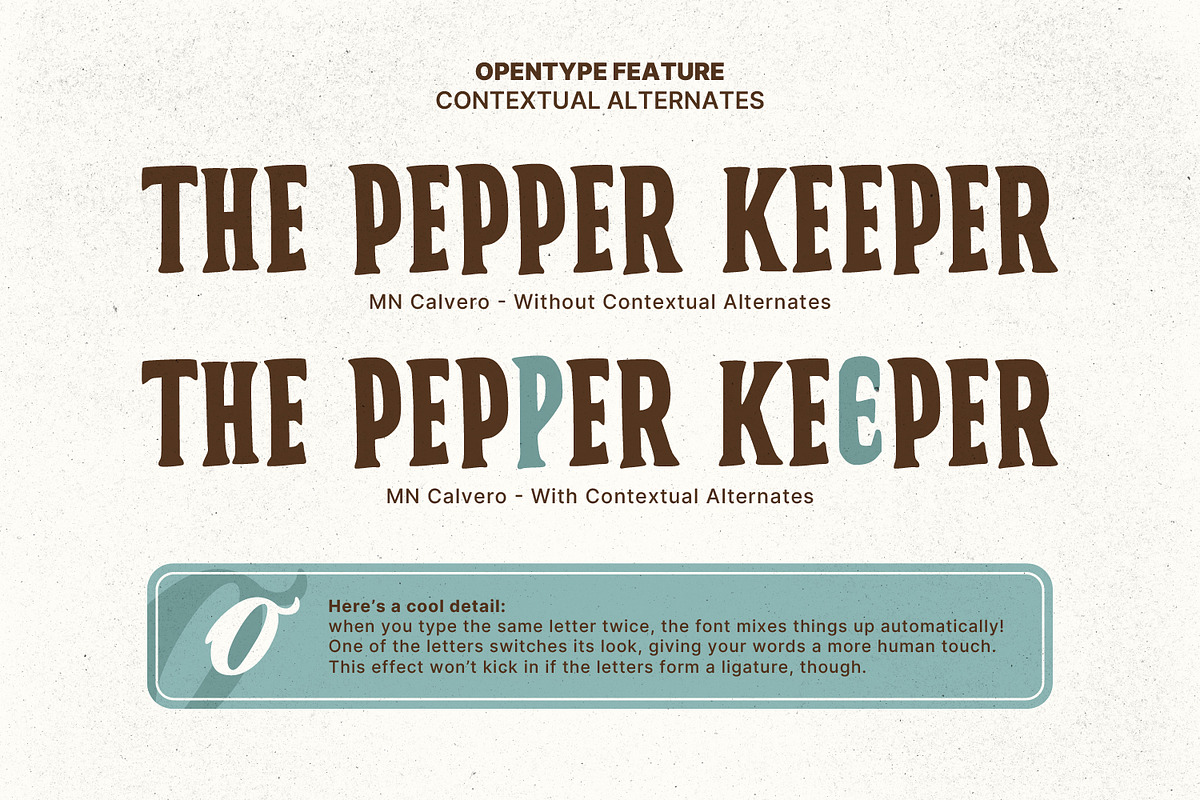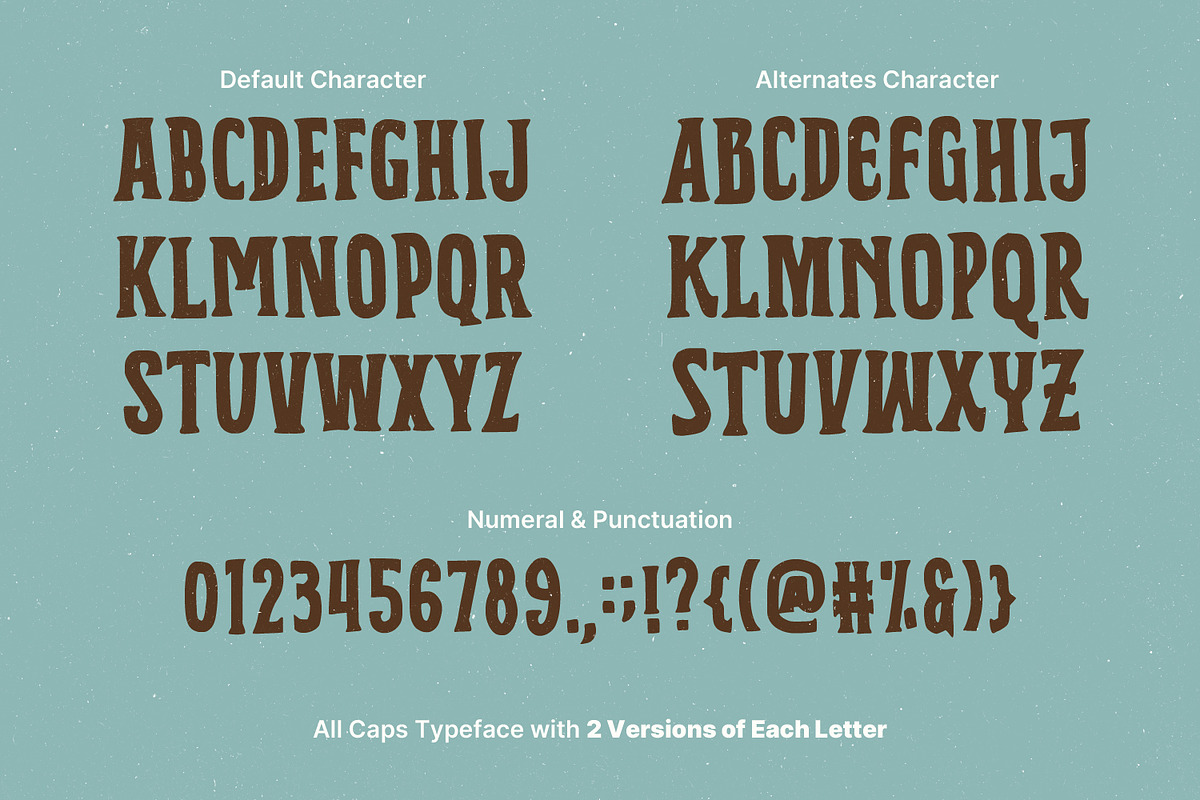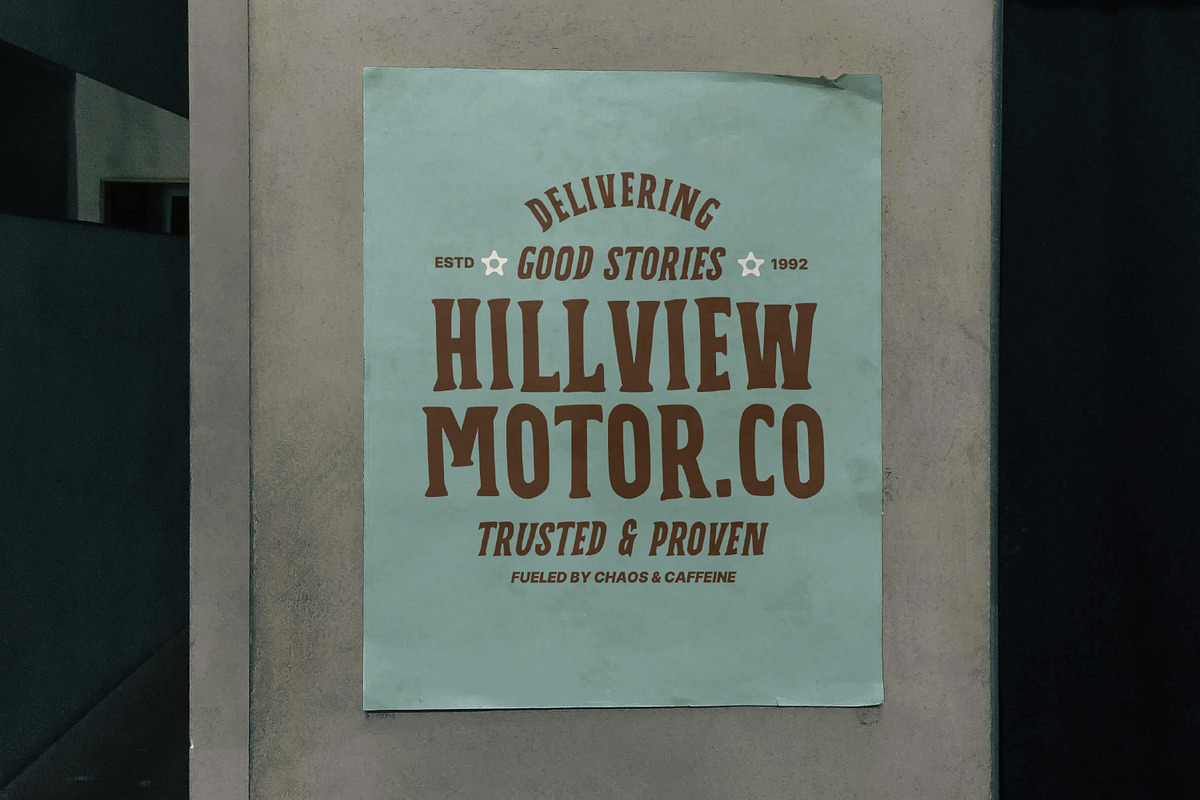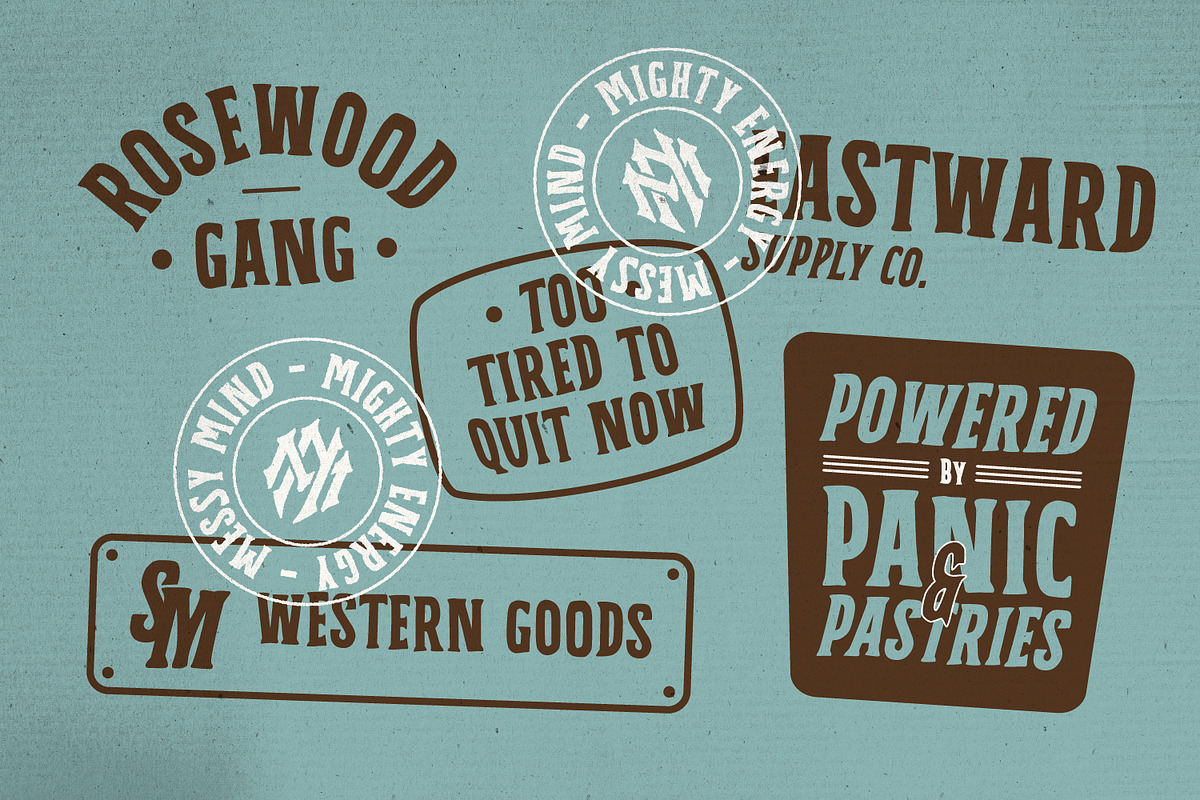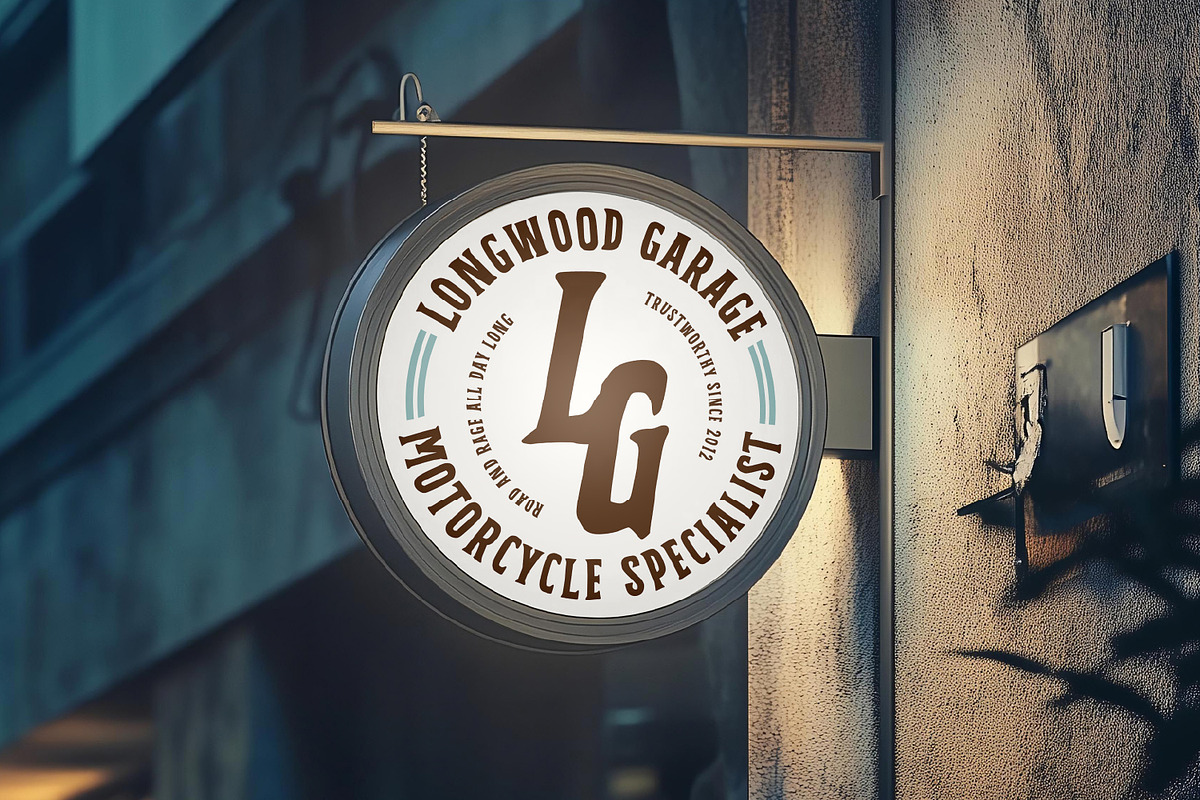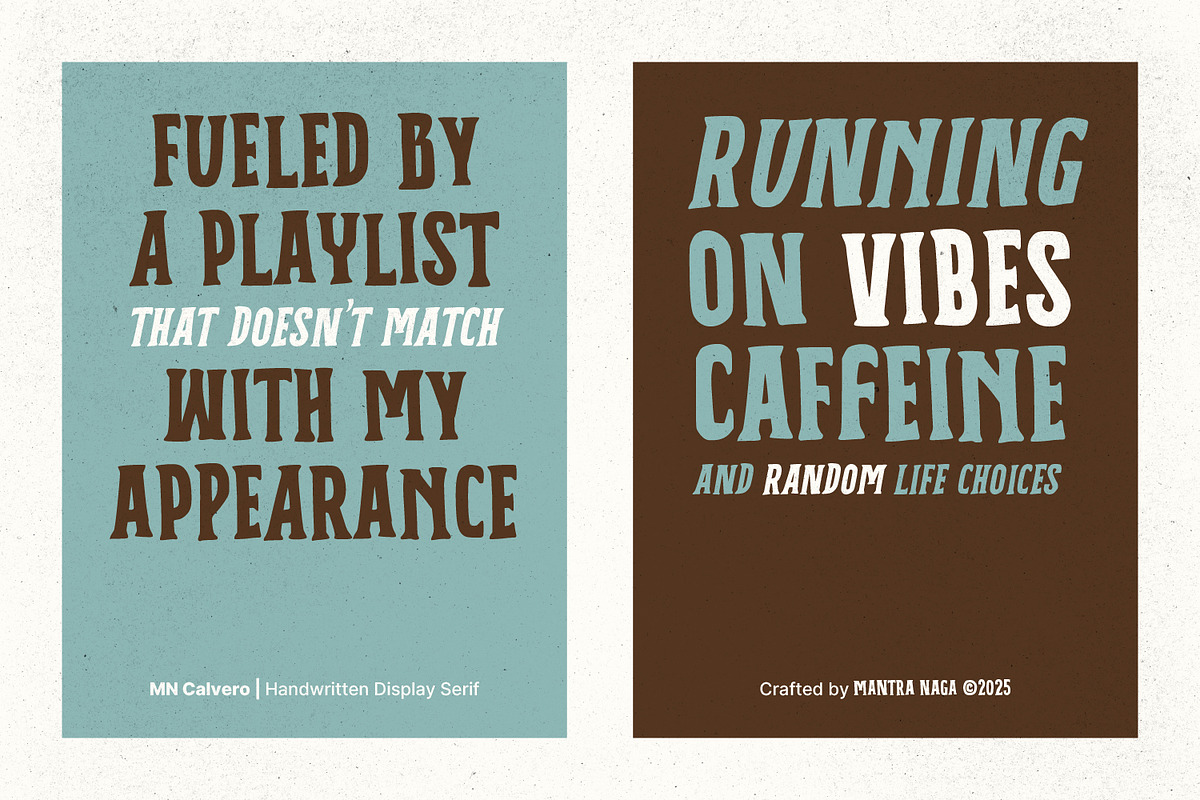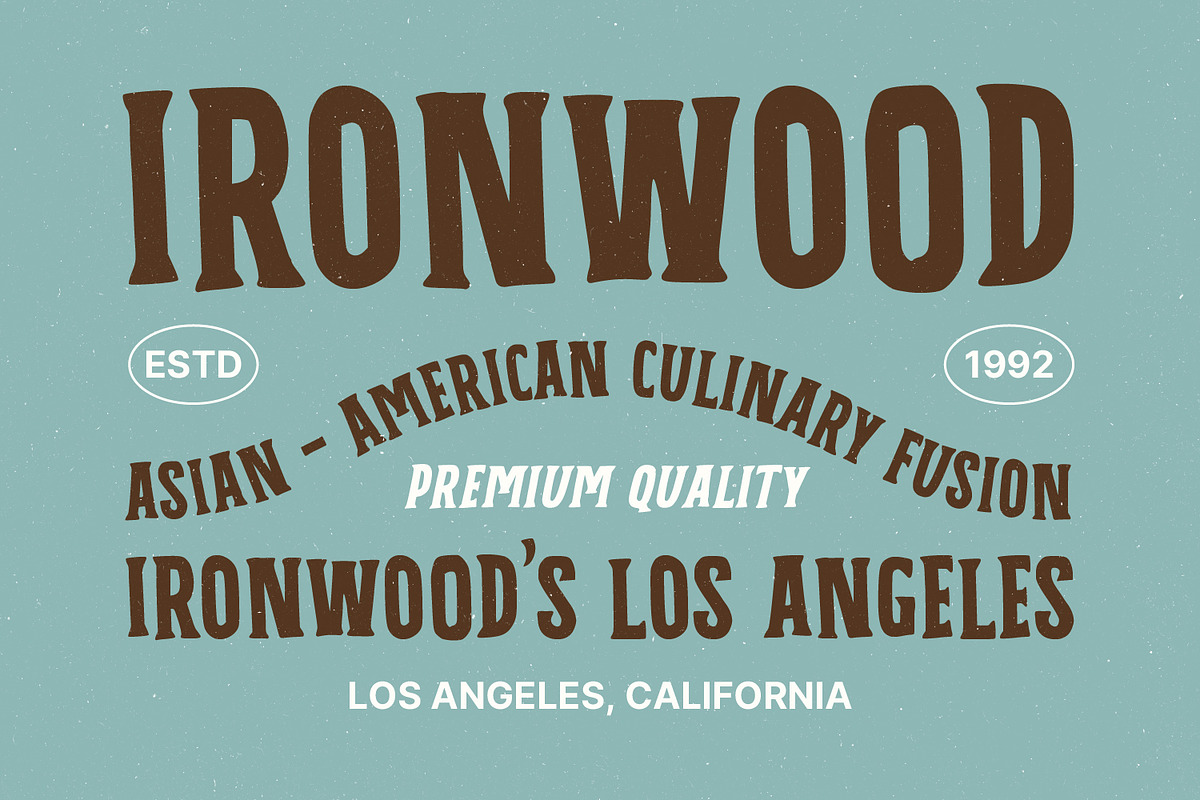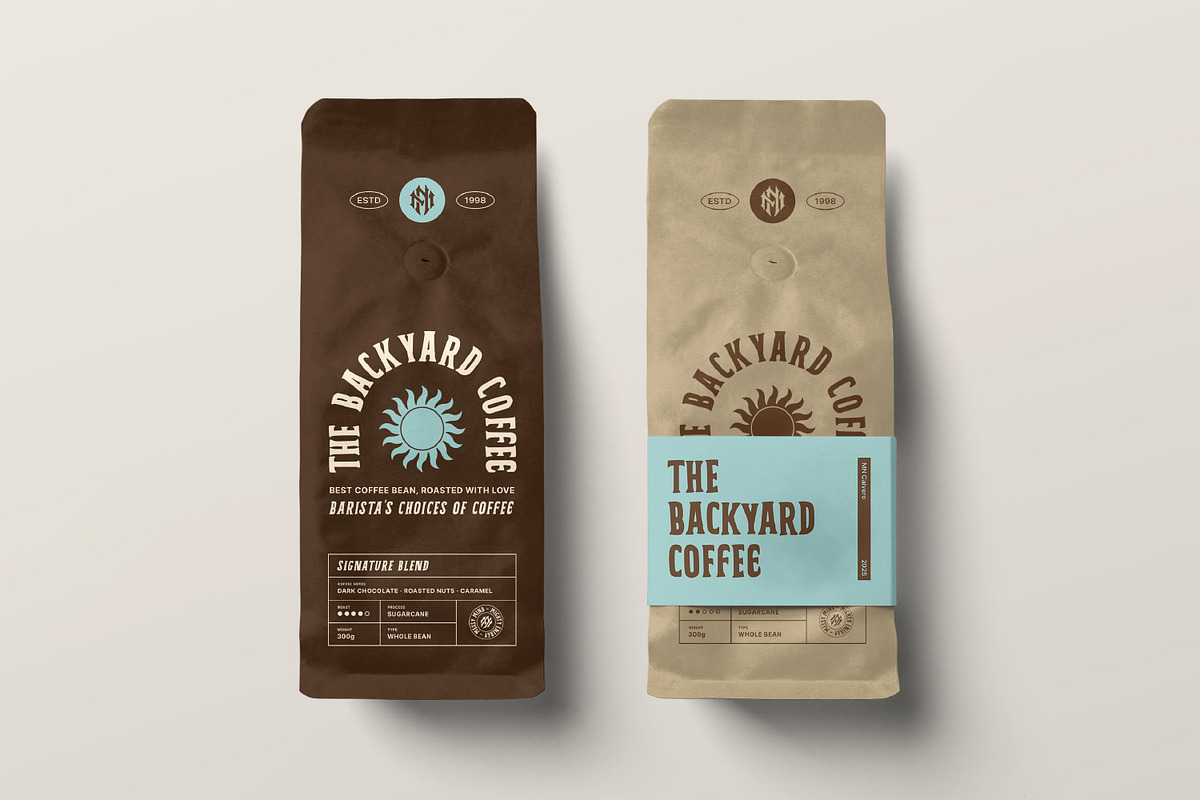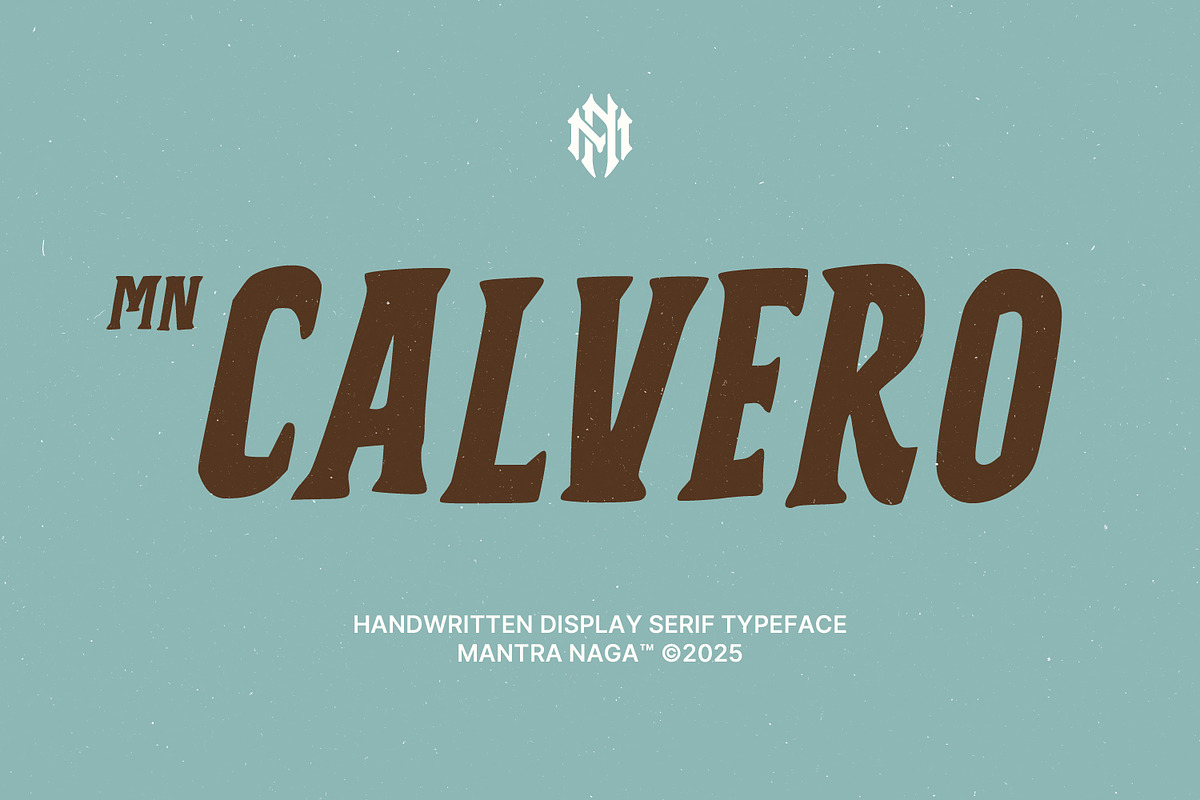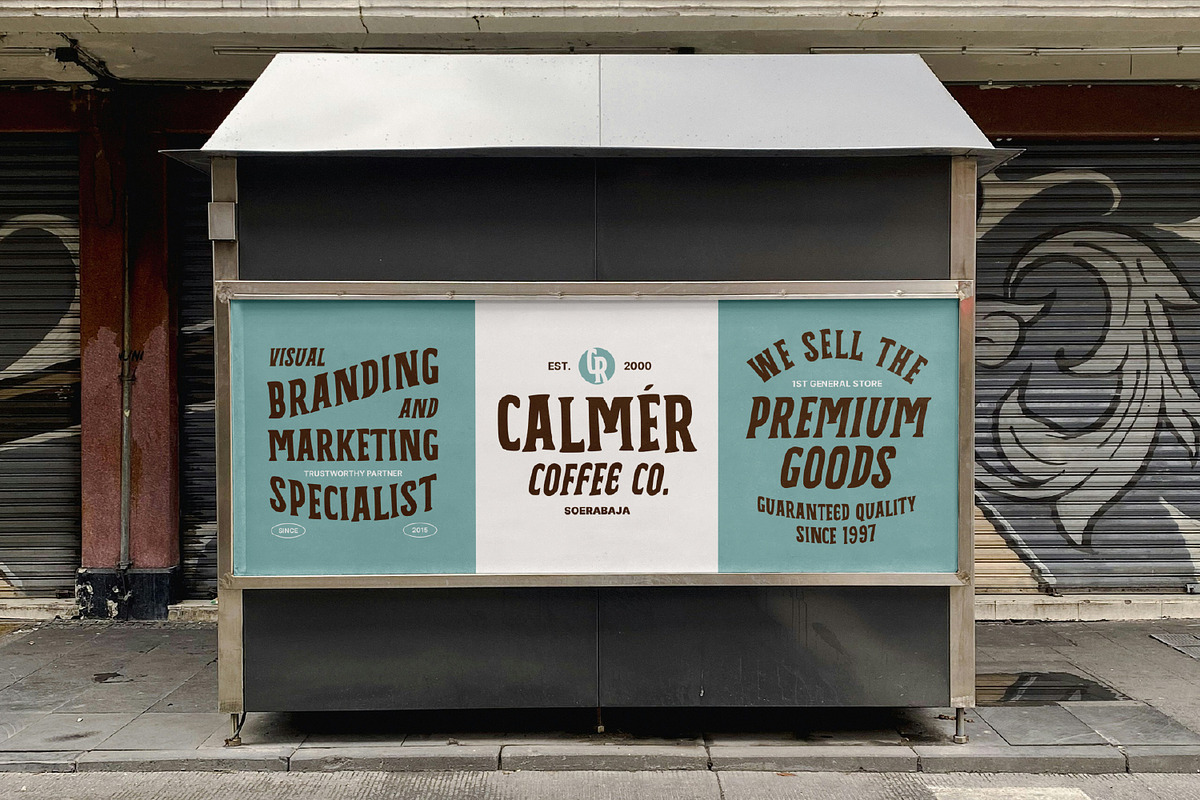
MN Calvero - Vintage Handwritten Duo
MN Calvero is a handcrafted display serif with a strong vintage soul. Designed in all caps to serve bold display needs, it shines in headlines, logotypes, posters, and anything that needs to stand out with character. Each letter is drawn manually by hand, giving it an authentic, imperfect charm that digital precision simply can't replicate. The result? A serif that feels nostalgic, rugged, and full of personality. Perfect for branding with a touch of timeless vintage appeal.